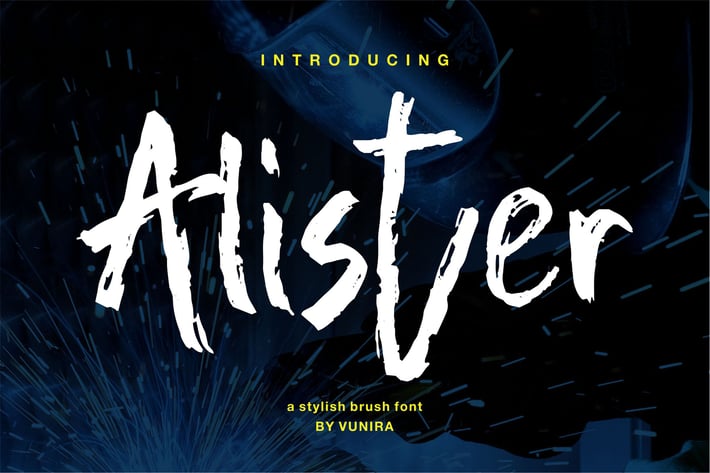
Alister | A Stylish Brush Font
Alister | A Stylish Brush Font with a calligraphy style, So beautiful on invitation like greeting cards, branding materials, business cards, quotes, posters, and more!